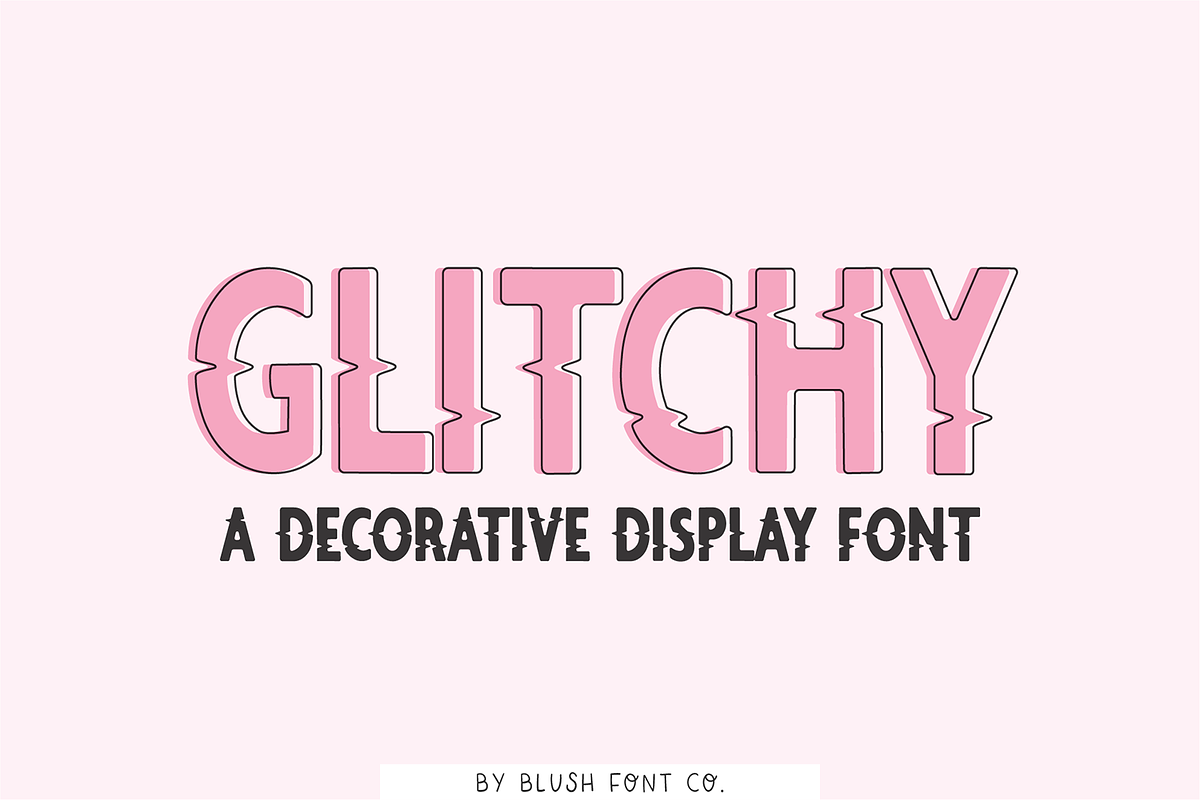
GLITCHY Display Video Game Font Free Download is a high-impact, futuristic typeface inspired by digital distortion and retro gaming aesthetics. Perfect for titles, game UI, streaming overlays, and tech-inspired designs, this font brings a glitchy, electrifying edge to your creative projects. Its sharp lines and fragmented details give the illusion of a screen glitch or signal interference, making it an excellent choice for cyberpunk, sci-fi, or tech-heavy themes.
This font is ideal for anyone looking to make their text stand out in a bold and dynamic way. Whether you’re designing game thumbnails, event posters, or motion graphics, GLITCHY delivers a powerful visual punch. You can download and test it out for free, but a license is required for any commercial use, including branding or promotional content.